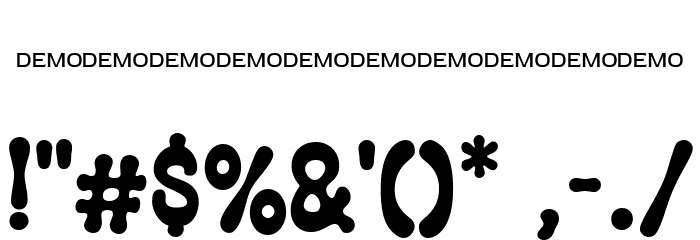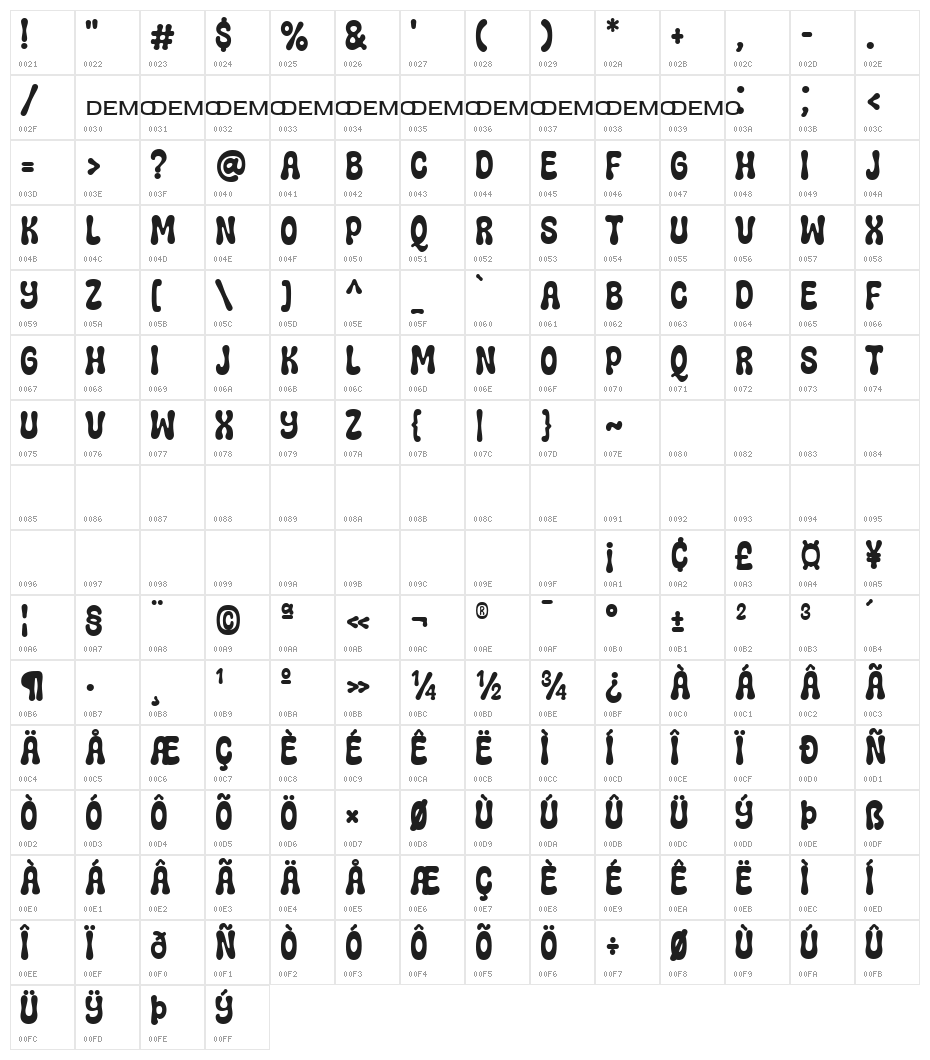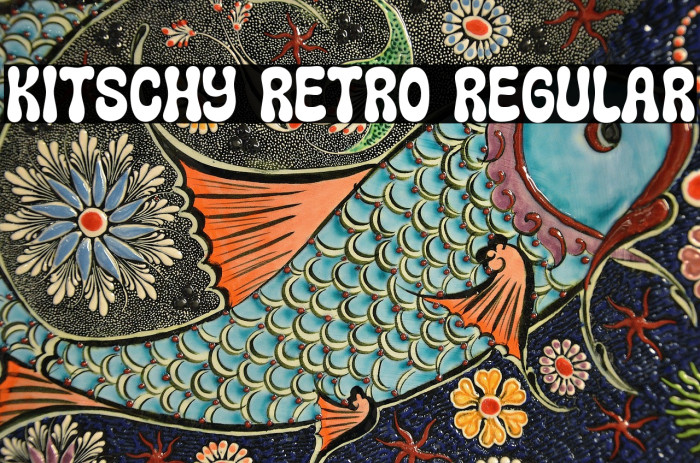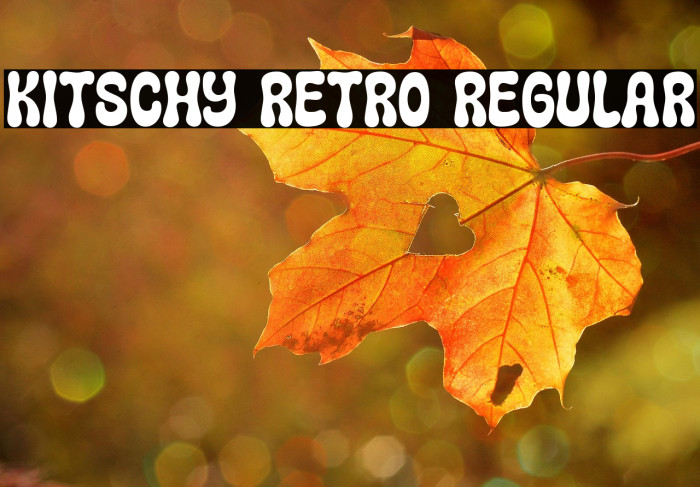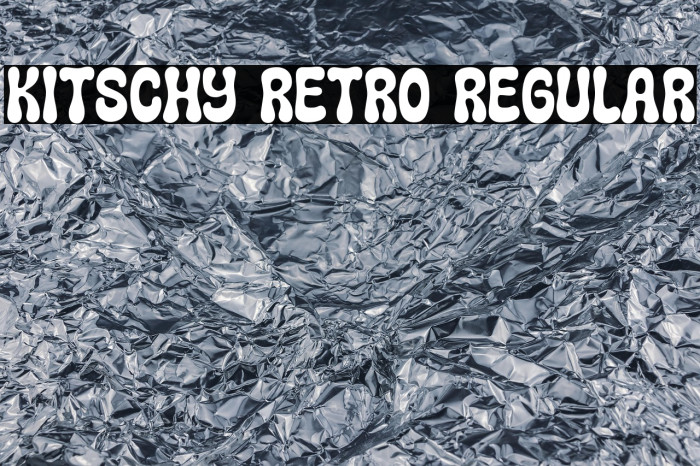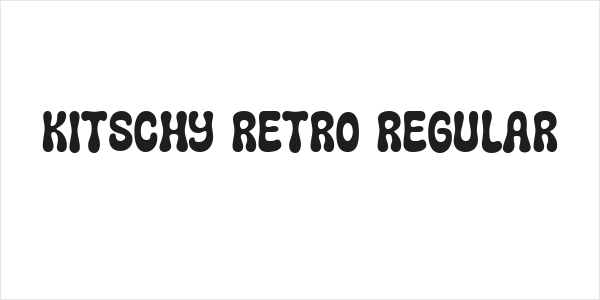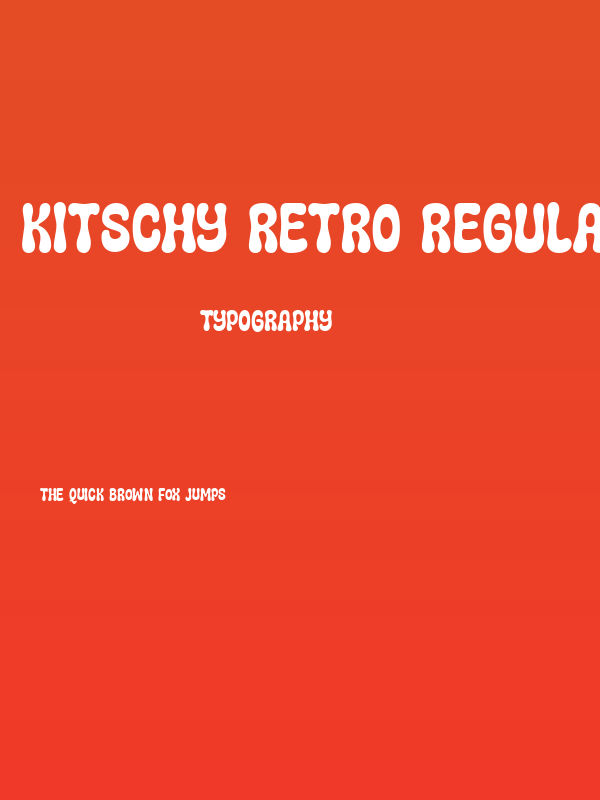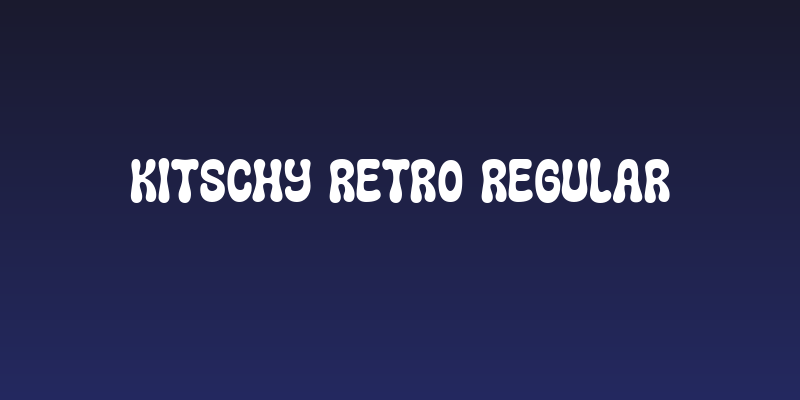
Kitschy Retro Regular Font
Kitschy Retro Regular Description
This font exudes a playful and nostalgic vibe, reminiscent of retro design aesthetics. The characters are bold and rounded, with a bubbly appearance that adds a sense of whimsy and fun. The uppercase and lowercase letters maintain a consistent style, with exaggerated curves and a slightly uneven baseline that enhances its quirky charm. The numbers and special characters follow the same design principles, ensuring a cohesive look across all elements. This font is perfect for projects that aim to capture a vintage or retro feel, making it ideal for creative and artistic endeavors.
| Overall Style | Retro, Playful |
| Proposed Projects | Ideal for vintage-themed posters, retro branding, playful packaging, and creative social media graphics. |